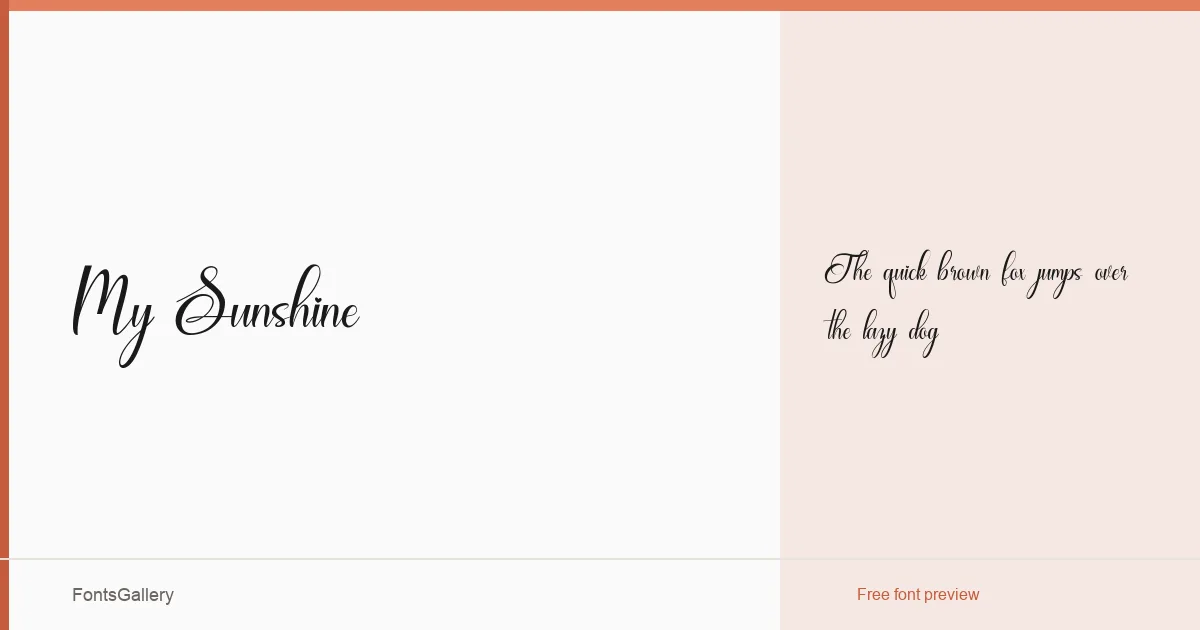
About My Sunshine Font
My Sunshine is a script typeface crafted by Nanda Hardiansyah under the Naharstd foundry. With its elegant and romantic character, it brings a warm, expressive quality to any design it graces. This font beautifully balances playful energy with classic refinement, making it a versatile choice for heartfelt and stylish projects alike.
As a script font, My Sunshine features flowing letterforms that exude elegance and romance, with graceful curves that feel both classic and playful. The fluid strokes create a natural, hand-crafted aesthetic that evokes warmth and charm. Its character set strikes a balance between sophisticated styling and a lighthearted personality, giving it broad creative appeal.
My Sunshine is ideally suited for weddings, invitation cards, greeting cards, branding projects, and social media graphics where an elegant yet approachable tone is desired. It pairs beautifully with the clean, modern simplicity of Helvetica to create a striking contrast, or alongside Aresink for a complementary stylistic harmony.